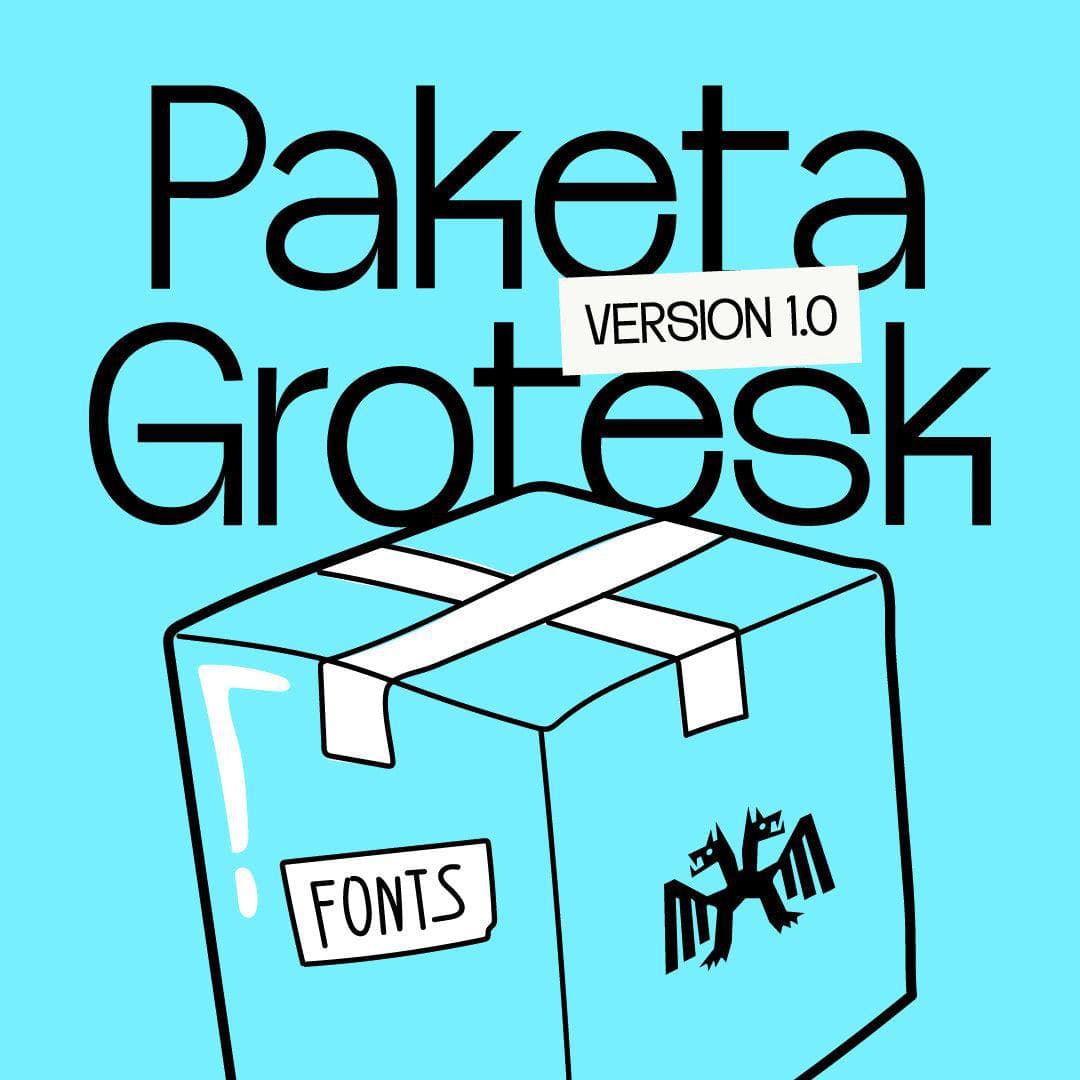
<p>Paketa Grotesk is the absolute latest type we have cooked in our font oven. </p> <p>Inspired by the actual name (Paketa) which is a box. This is where the general feel of the type was taken, a geometric box like feel with sharp corners and turns. As per usual, it is a nice grotesk for nice people. </p> <p>We want this type to portray a fun feel and be versatile, usable in a lot of mediums and open to anyone who wants to experiment. </p> <p>Available in 3 weights and it is a little bit multilingual.</p>